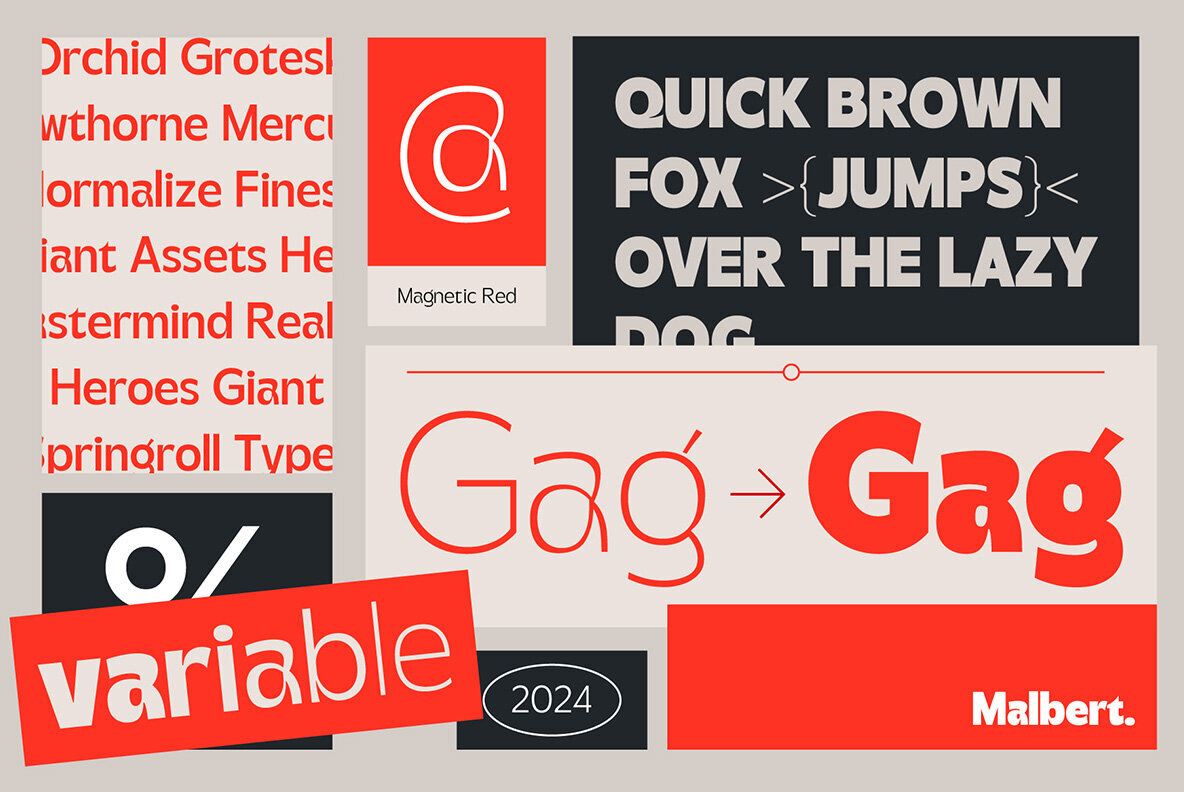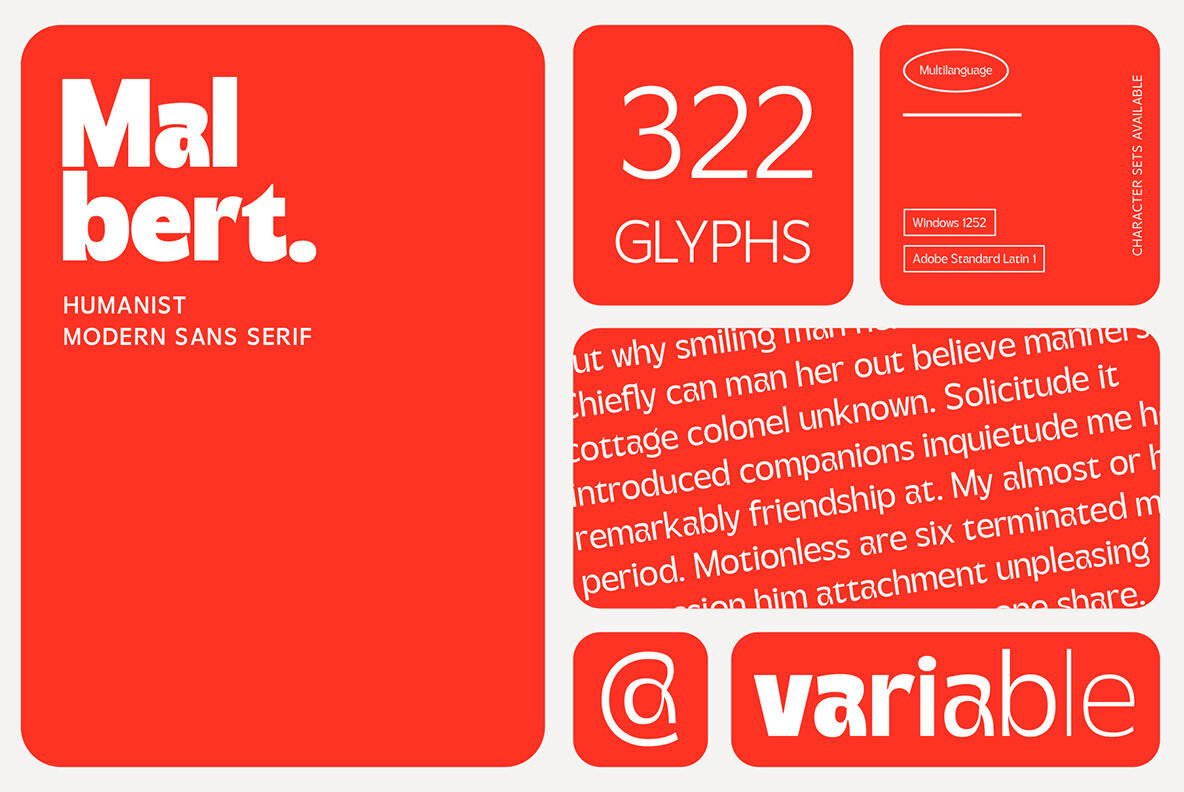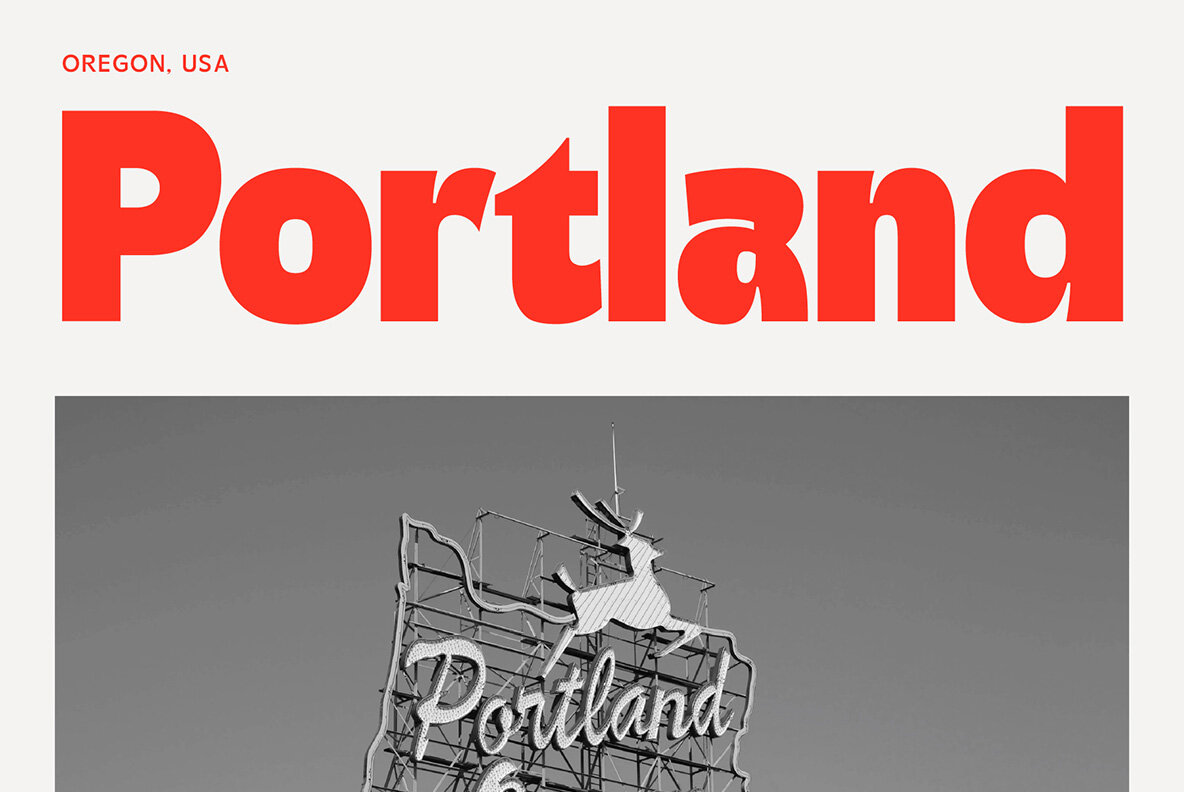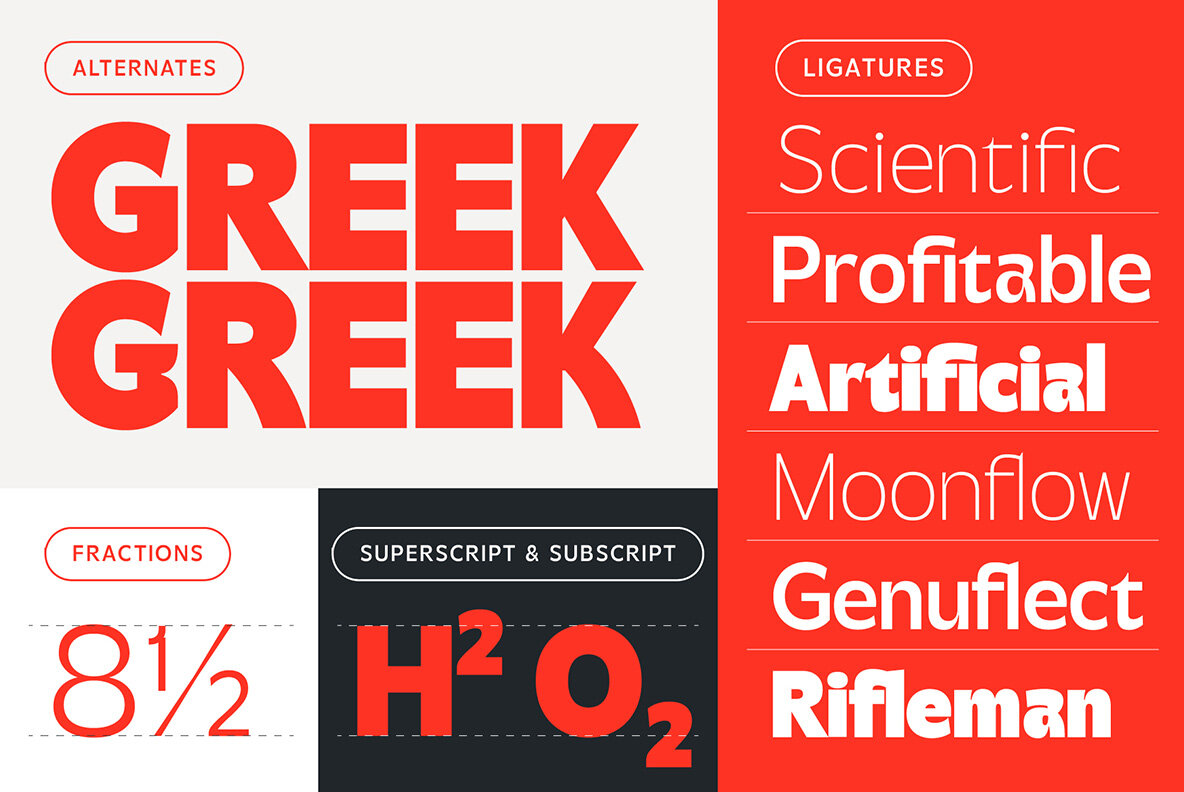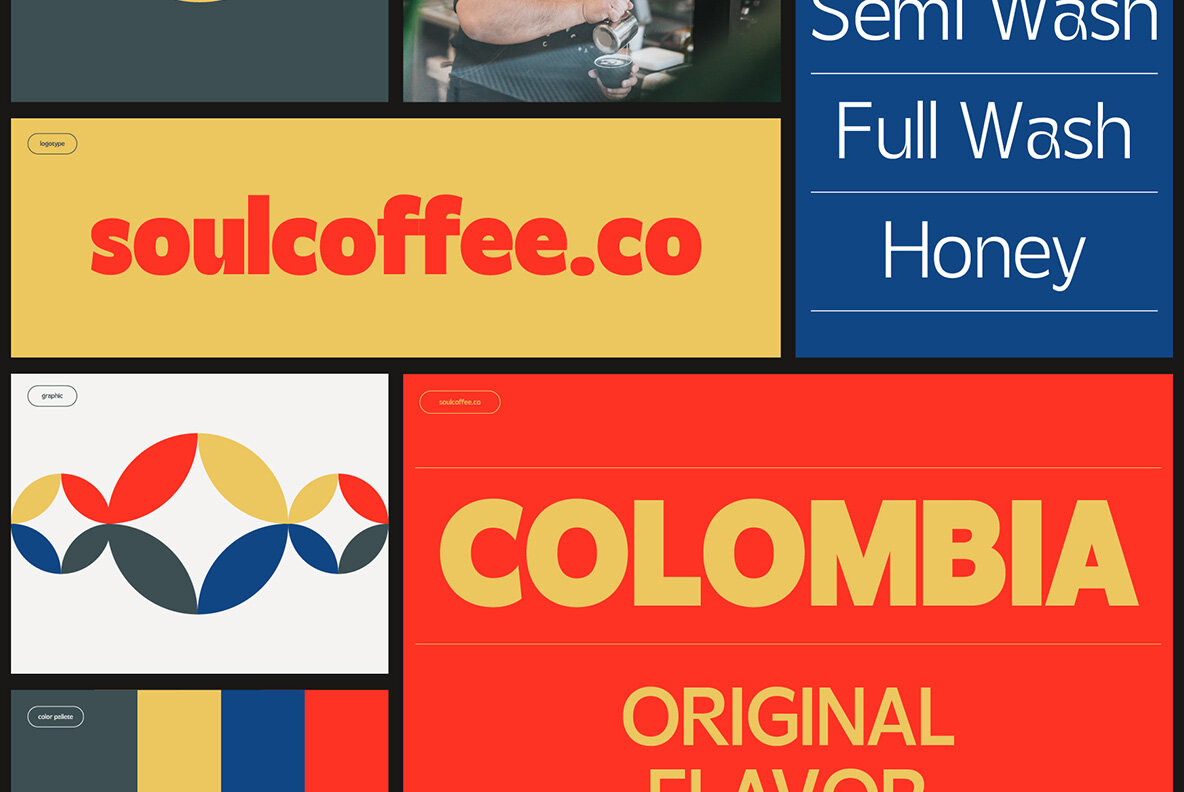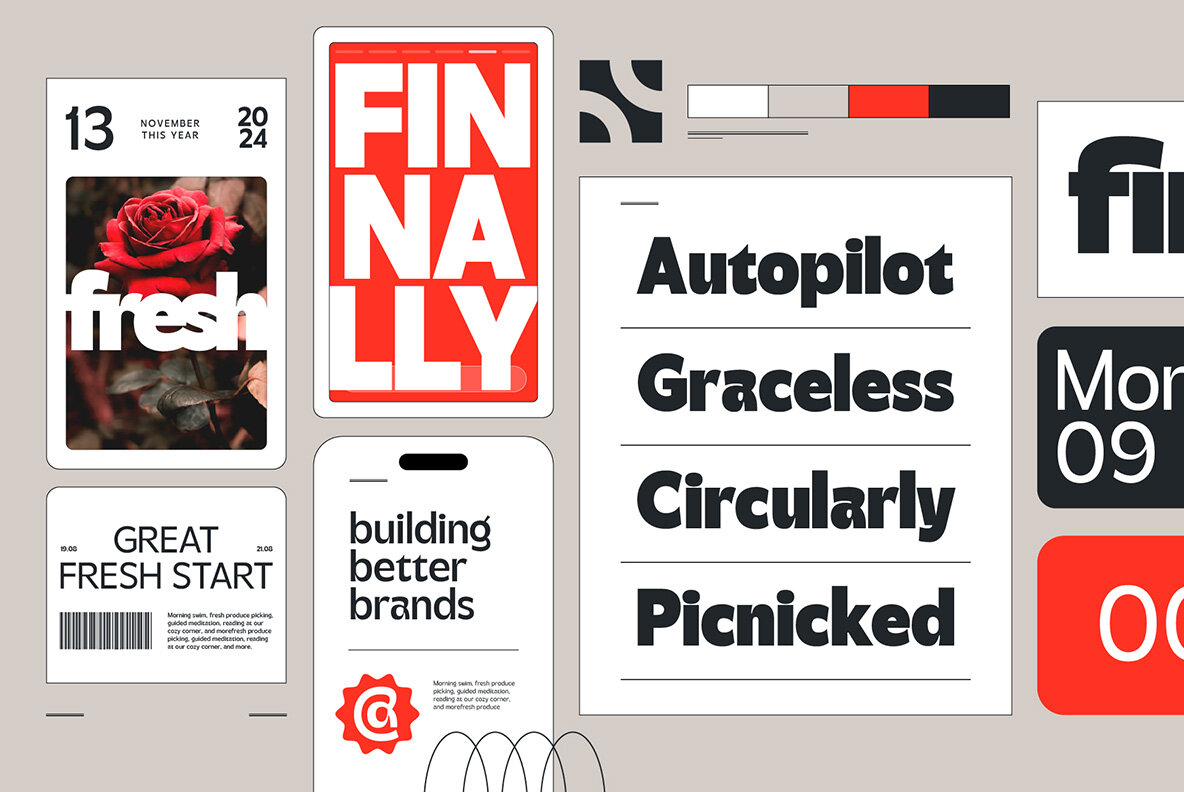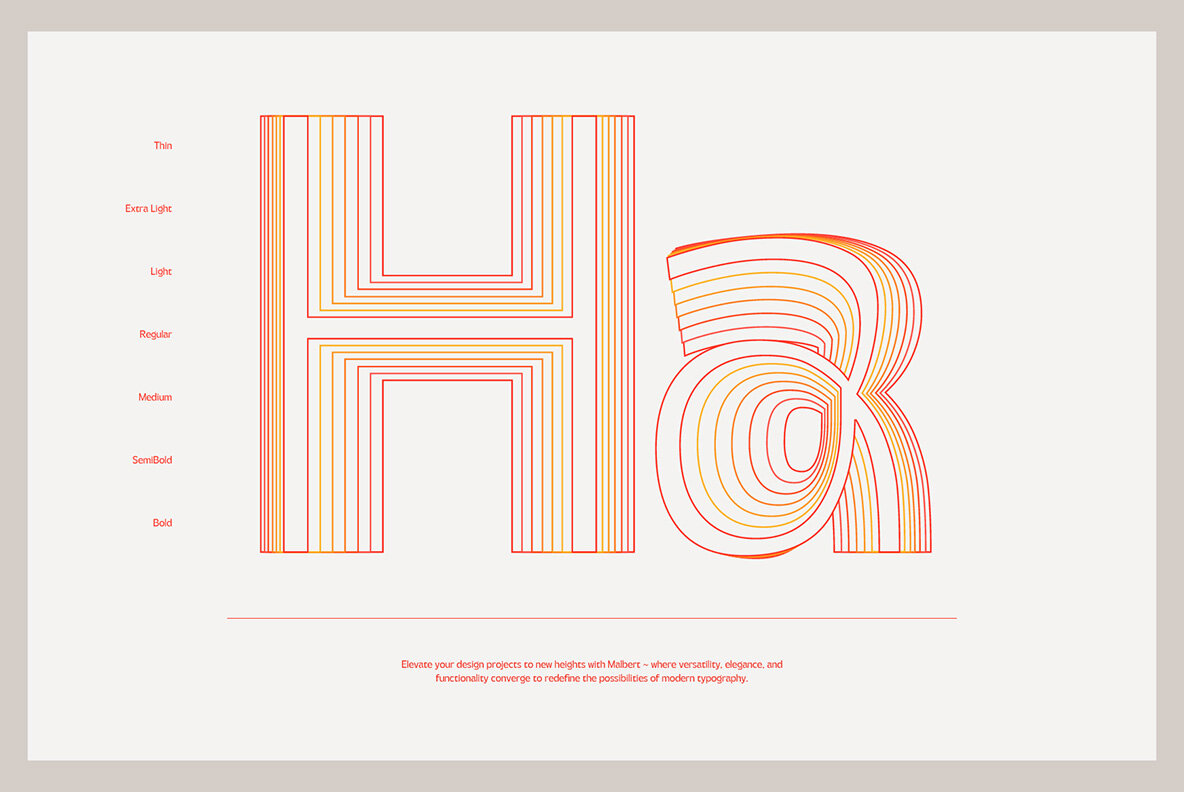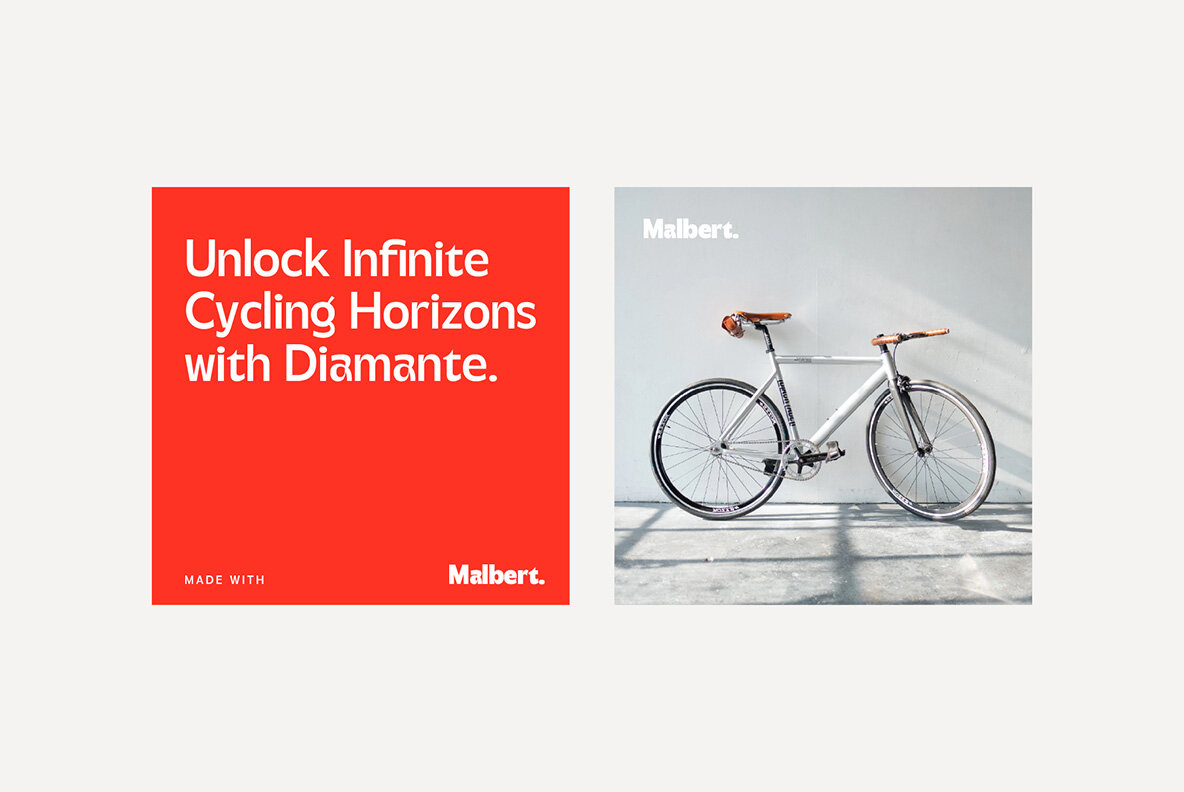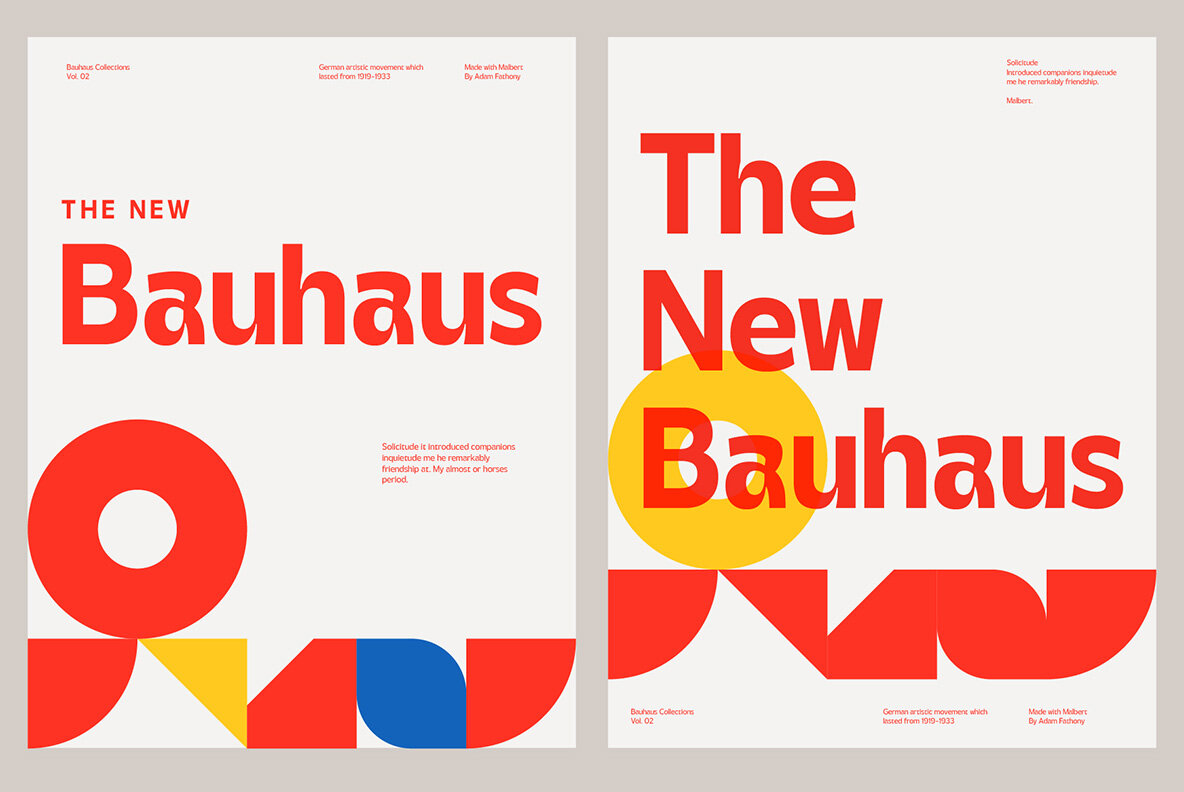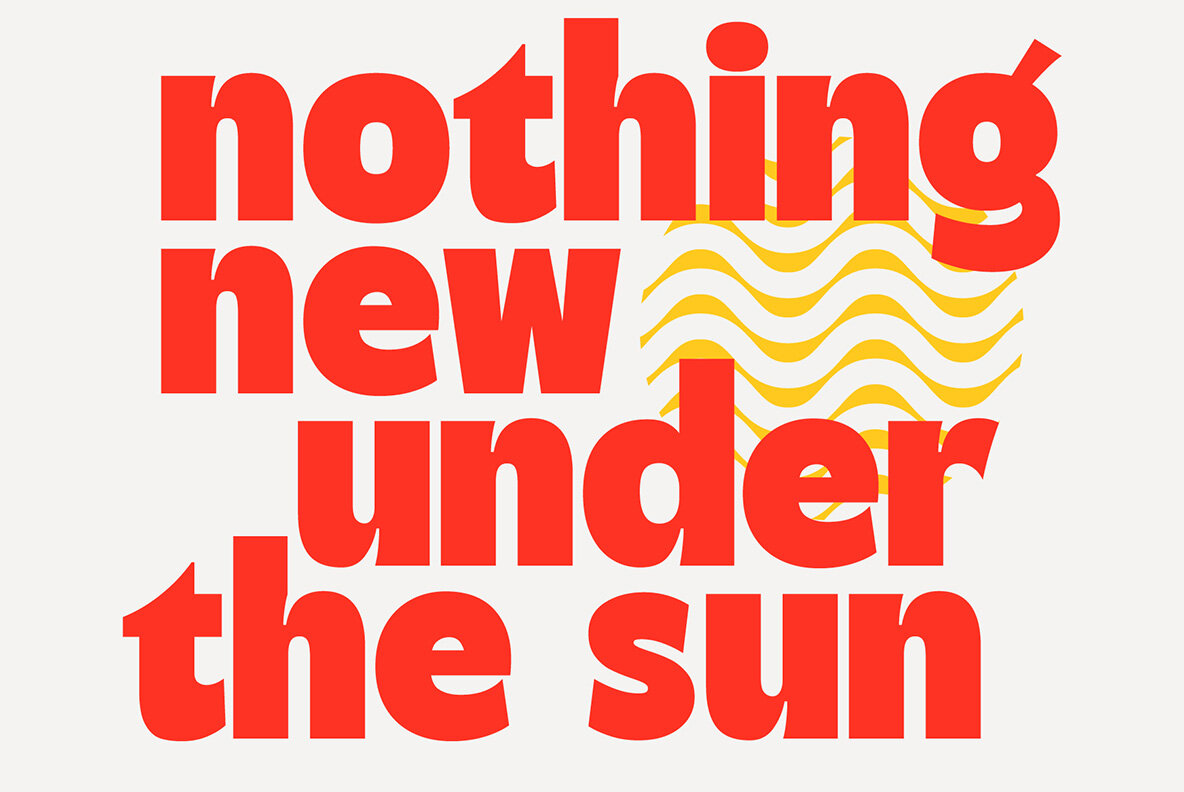
Malbert Font
Introducing Malbert, a dynamic variable font designed to elevate your typographic creations with its sleek, modern, and humanist-inspired aesthetic. With seven meticulously crafted weights ranging from the delicate Thin to the commanding Bold, Malbert offers unparalleled versatility to suit any design project. Embodying the essence of contemporary elegance, Malbert strikes the perfect balance between sophistication and accessibility. Its sans-serif design exudes a sense of clarity and modernity, making it ideal for a wide range of applications, from editorial design to digital interfaces. Each weight of Malbert is carefully calibrated to ensure optimal legibility and visual impact across various platforms and media. Whether you're designing a sleek website interface or crafting a minimalist print layout, Malbert delivers crisp, clean lines and impeccable readability every time. In addition to its extensive weight range, Malbert boasts a rich array of features to enhance your creative endeavors. Alternate characters provide added versatility, while ligatures ensure smooth and seamless letter combinations. Fractions, superscript, and subscript options offer precision and flexibility for mathematical and scientific content. Furthermore, Malbert supports multilanguage character sets, including Windows 1252 and Adobe Standard Latin 1, ensuring compatibility with a diverse range of linguistic requirements. Whether your project demands English, Spanish, French, or beyond, Malbert is equipped to handle it with ease.